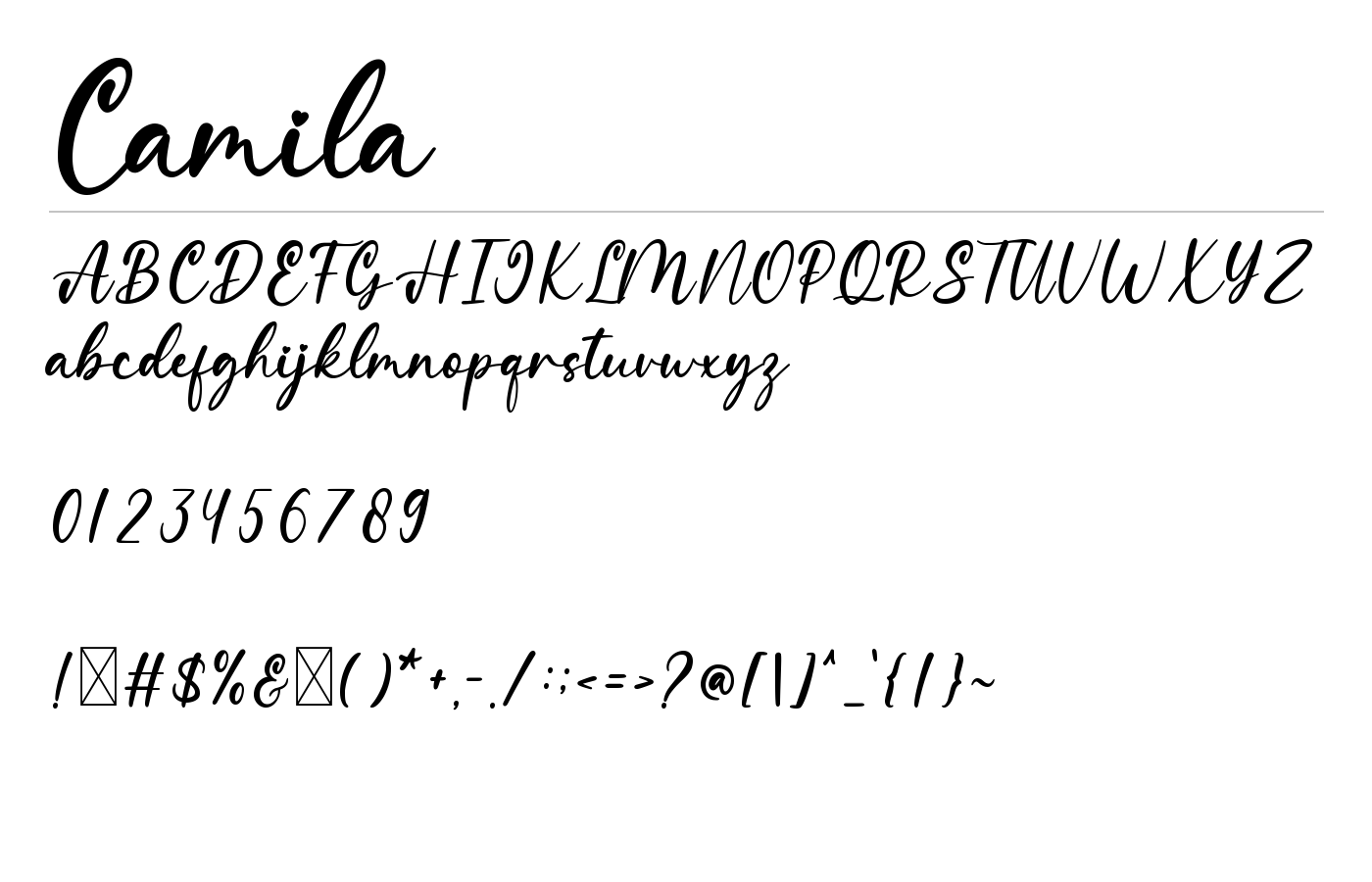
Camila is a delicate and elegant script font with smooth, flowing strokes that give it a hand-lettered, personal touch. Its slender, slightly varied line weight and playful details, like the heart-shaped dot on the “i,” create a charming, friendly feel, making it perfect for invitations, branding, and other creative projects that need a warm, approachable style. This font shines in designs that want to evoke a sense of grace and individuality.
Camila Font
About Camila Font